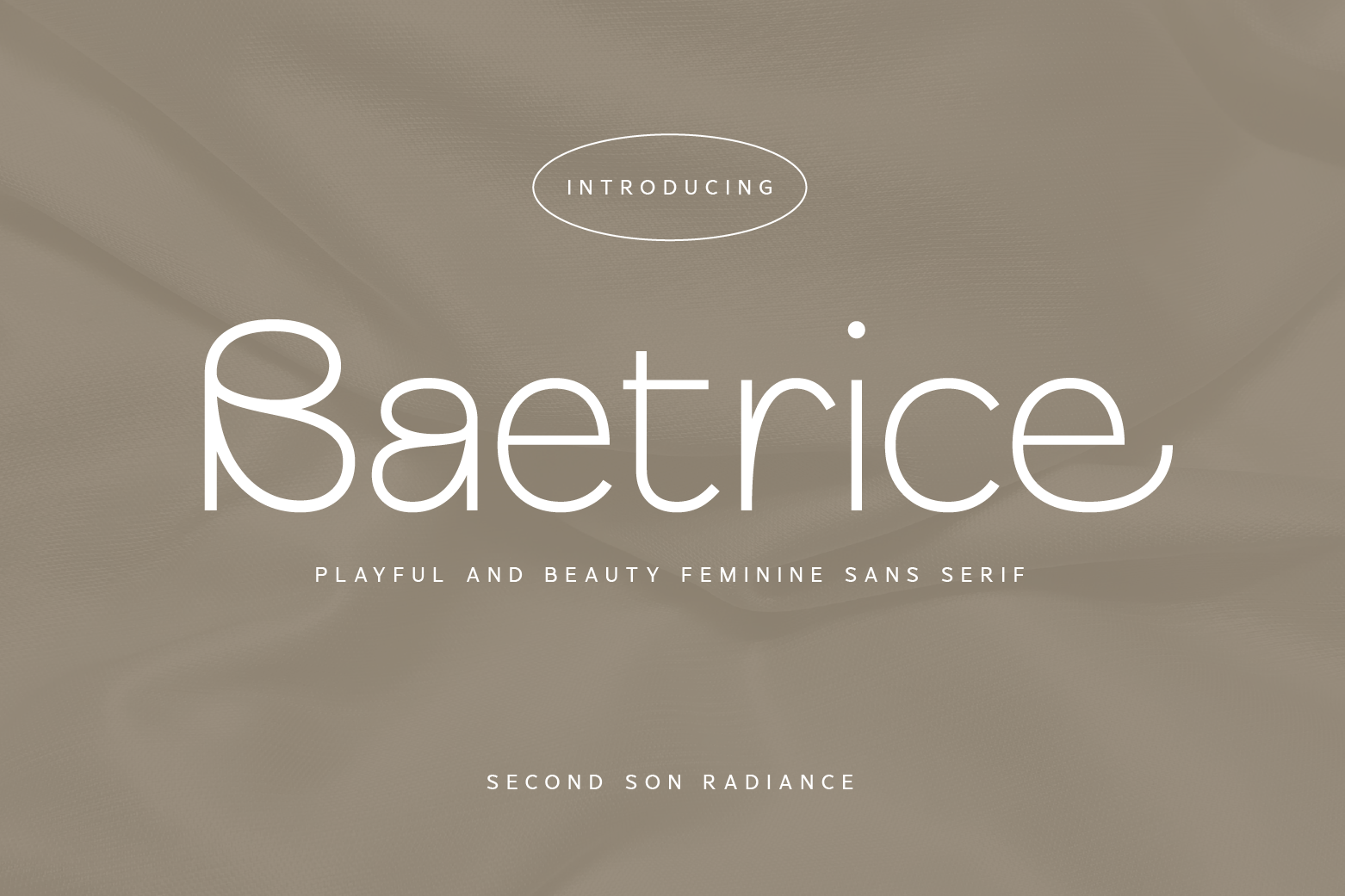
SS Baetrice - Feminine Sans Font
Baetrice - Playful and Beauty Sans - Monoline Sans Serif Font
Baetrice is a beauty feminine and playful sans serif with so much creative design potential, comes with tons of ligatures and alternates for your upcoming project. Such as luxury logo branding, editorial design, stationery design, Elegant Modern Fashion, Salon Beauty, feminine advertising design, blog / website design, card invitation, art quote, home decor, book/cover title, special events ( wedding, birthday, etc ), and any more.